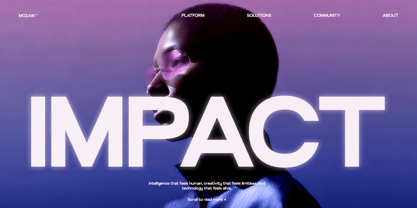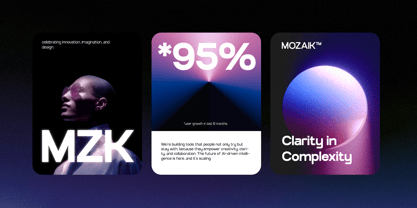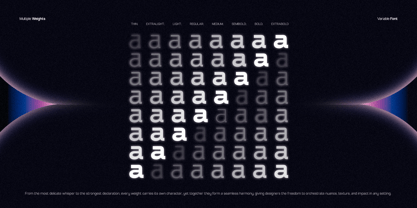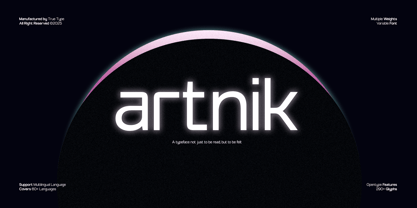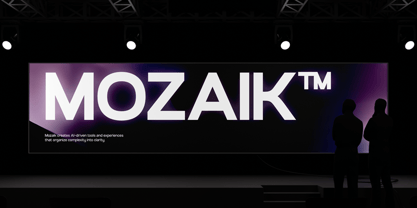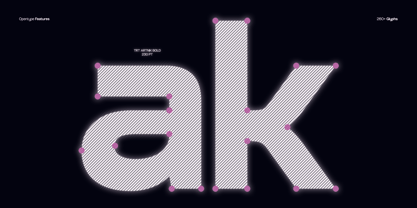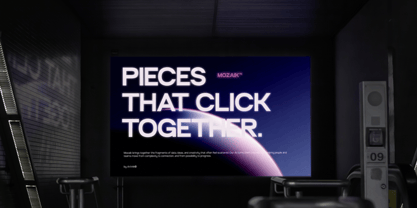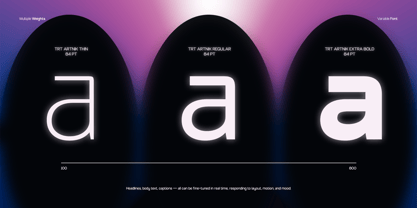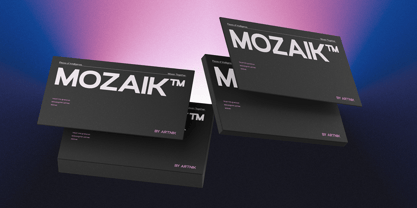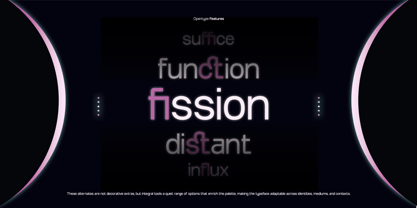
TRT Artnik
by True Type Lab
The TRT Artnik Font Family was designed by Yusilo Oktaprima Ardani and published by True Type Lab. TRT Artnik contains 8 styles and family package options.
When I began working on TRT Artnik, I was reminded of the strength of simple leTRTerforms I had once seen in classic fonts like Futura. That typeface carries a sense of precision, order, and timelessness — but I wanted to create a version that felt more flexible and refreshed for today’s design needs. From there, I started shaping the leTRTers using circles and straight lines, keeping the proportions balanced while adding subtle details to certain characters to make them friendlier and more recognizable. The result is TRT Artnik — a semi-display sans serif that maintains a geometric structure yet remains versatile for a wide range of projects. From branding and editorial work to digital interfaces, Artnik is designed to be clear, clean, and full of character. At True Type, we design fonts that are honest, functional, and expressive — crafted to help your message connect clearly and confidently.
About True Type Lab
Founded by Yusilo Oktaprima Ardani, True Type Lab is a creative studio dedicated to exploring typography through a balanced approach of artistry and functionality. What began as a deep fascination with letterforms and typographic details has evolved into a studio that crafts typefaces with strong personality, distinctive character, and versatile usability.At True Type Lab, every letter is treated as a work of art with a vital role in delivering visual messages. We combine timeless design principles with modern techniques, creating fonts that are not only aesthetically pleasing but also optimized for diverse applications—both in print and digital environments. Our design range includes elegant serifs, modern sans-serifs, and experimental display fonts, each developed through thorough research and a meticulous creative process.With a focus on readability, flexibility, and visual identity, True Type Lab is committed to creating typefaces that empower designers, brands, and creators to craft impactful visual communication. From global brand identities to independent editorial projects, our fonts are designed to help stories and messages come alive on every page.